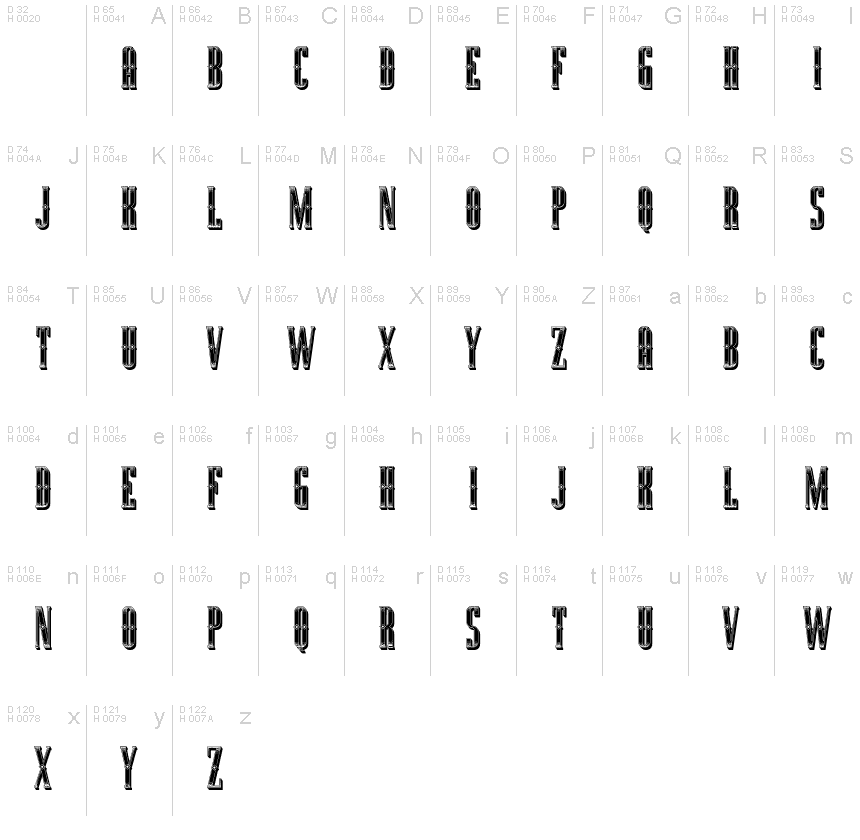
Wedding Cabbage Regular
"Wedding Cabbage" is an awesome 3D display font. It features a retro style and it s perfect for adding a nostalgic feel to your designs!